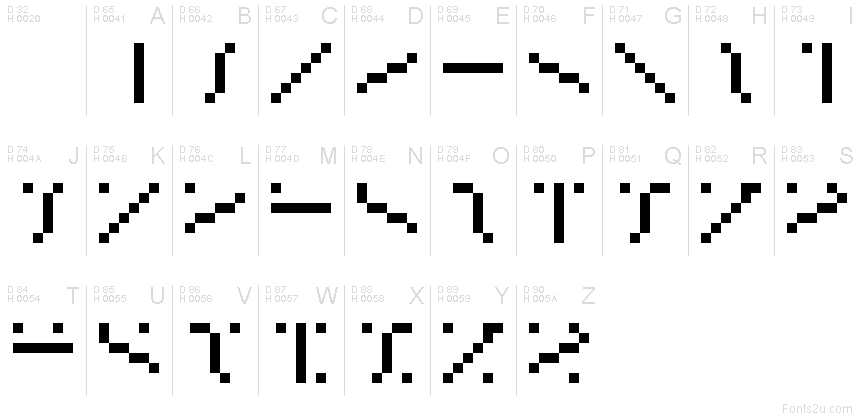
lily Regular
Lily font by Lily is a modern collection of geometric symbols inspired by digital works. Each element presents itself in a pixelated manner where the shapes and lines are simple, minimalistic, and well compatible with futuristic style projects. The vibe is fresh and unique, allowing the use of these items in current tech-related contexts including gaming.
The dingbats within this free font are particularly suitable for logos, product packaging, wall posters, general web content design as well as other online visuals. Mobile applications and tablets can also benefit from their clarity while presenting UI elements such as icons or buttons. Designers visually representing coding apps or gaming platforms would warrant results worth cherishing.